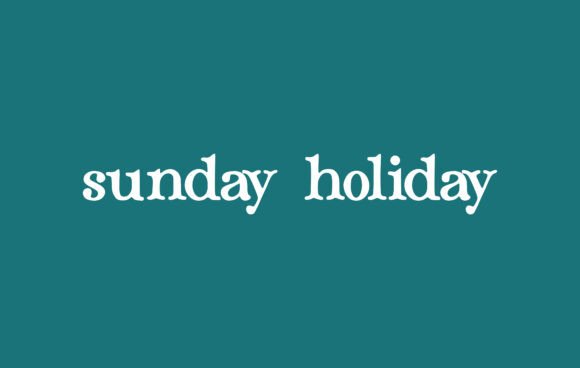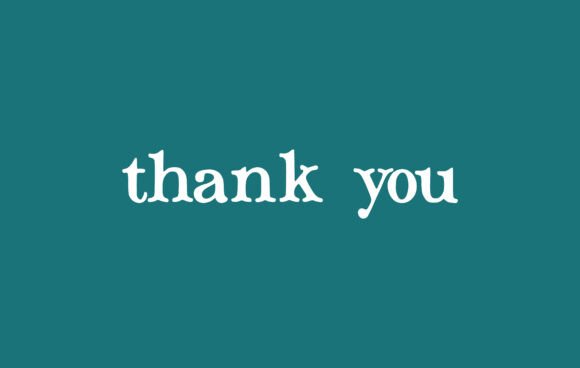
American Typewriter Font
American Typewriter font is an authentic handwritten font with a romantic touch. Expertly designed to be a true favorite, this font has the potential to take your creative ideas to the highest level This font is legible and looks great as a title or body text. This font would be perfect for many different designs for magazine headlines, social media, branding, wedding invitations, cards, etc.